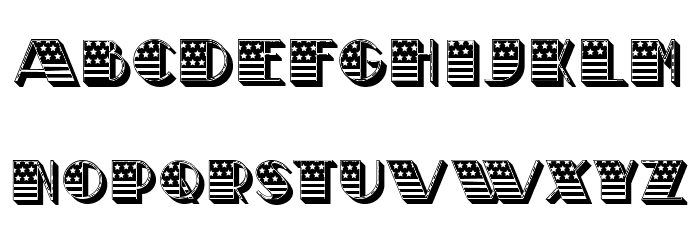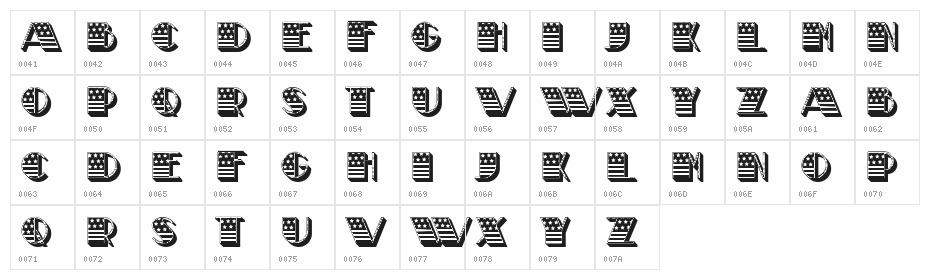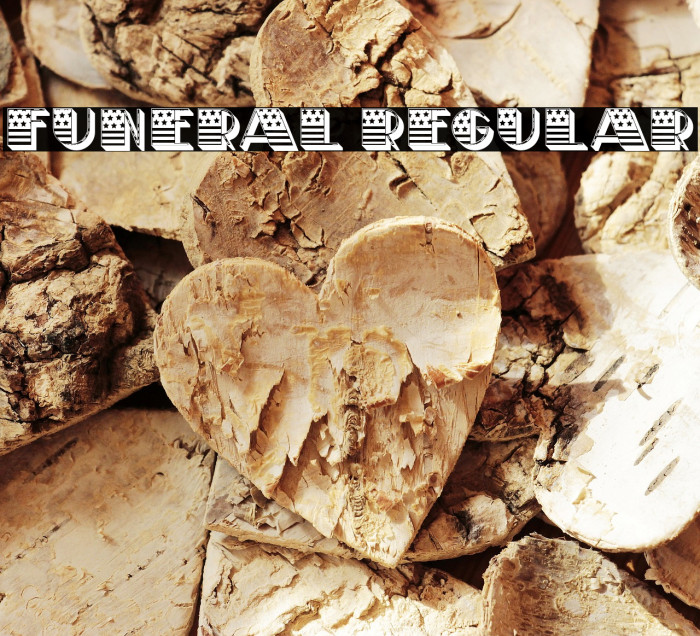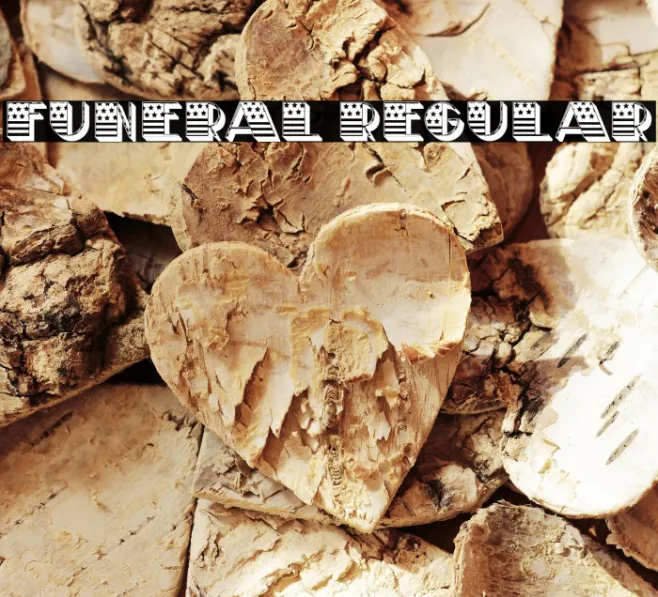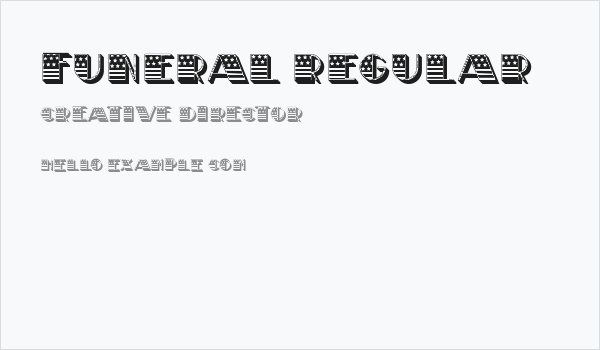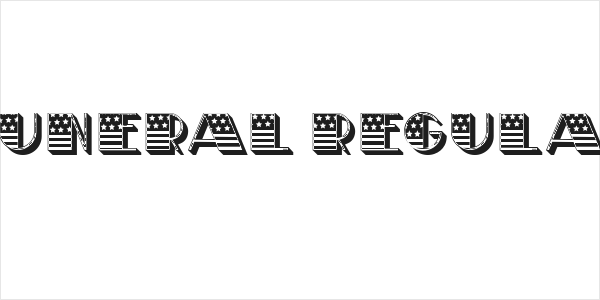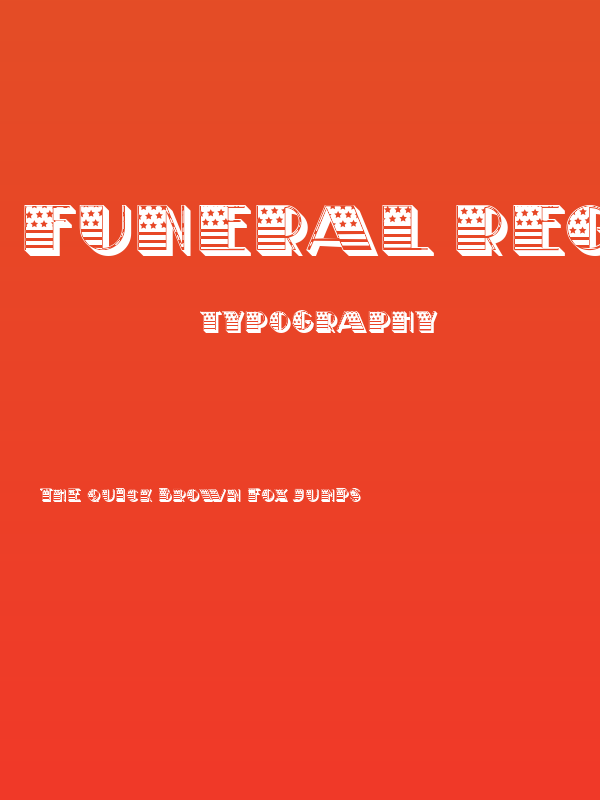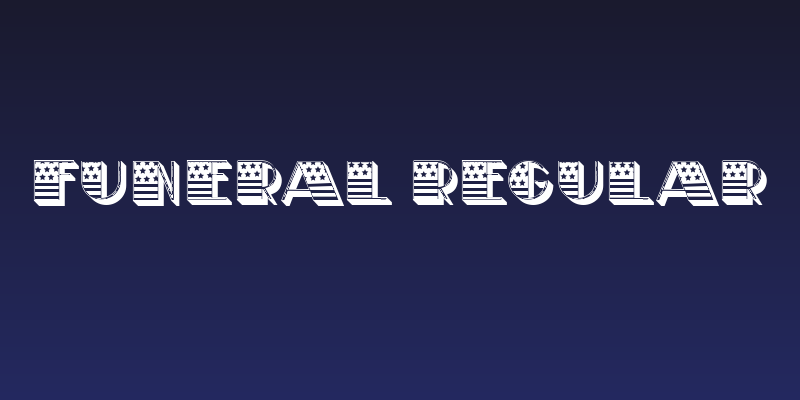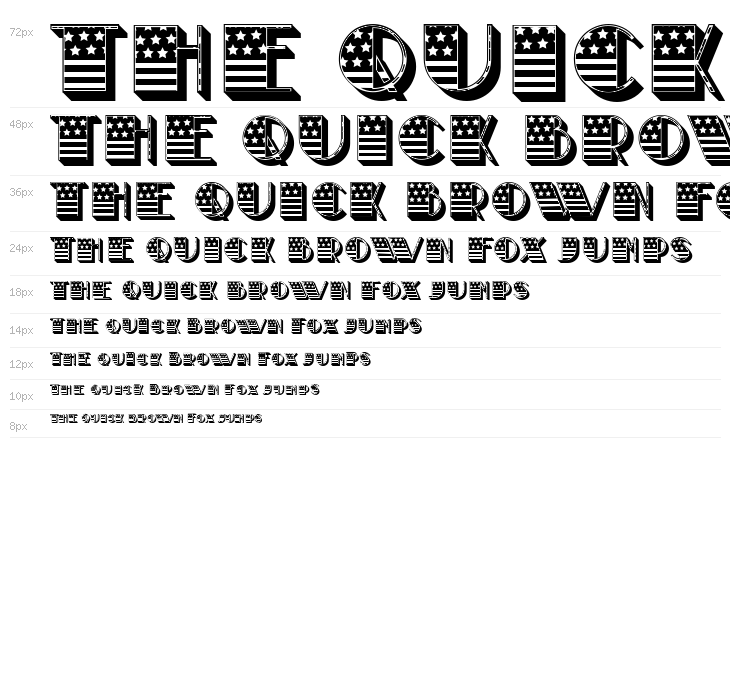
Funeral Regular Font
Funeral Regular Description
This font features a bold, decorative style with a distinct patriotic theme. Each character is adorned with stars and stripes, reminiscent of the American flag. The letters are uppercase and have a three-dimensional effect, giving them a strong, impactful presence. The design is highly detailed, with the stars placed in the upper section of each letter and stripes running horizontally. This font is ideal for projects that require a bold statement and a touch of Americana, such as posters, banners, or themed events.
| Proposed Projects | Ideal for patriotic-themed posters, banners, event signage, and promotional materials. |